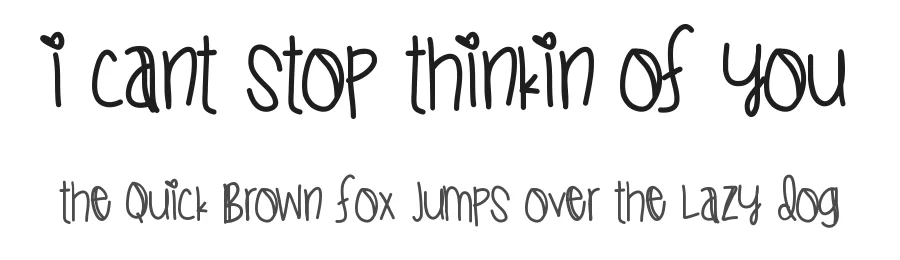
About Hotline Bling Font
Hotline Bling is a script & handwritten font designed by Des Gomez. It includes 103 glyphs, a medium weight, TTF (TrueType) format, and 107 languages. Hotline Bling is free to download; check the license details on this page before commercial use. Script & handwritten fonts like Hotline Bling work best for wedding invitations, greeting cards, signatures, and elegant branding.
Hotline Bling Font is a script font that shines as a display or heading face. Pair it with a clean sans-serif or serif font for body text β the contrast creates a clear hierarchy while the two styles stay balanced and easy to read.
Hotline Bling Font
by Des Gomez